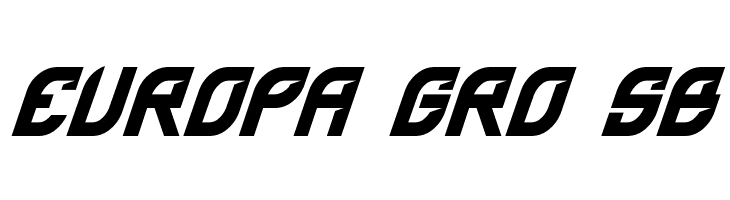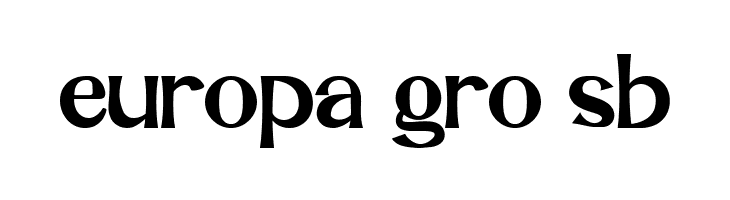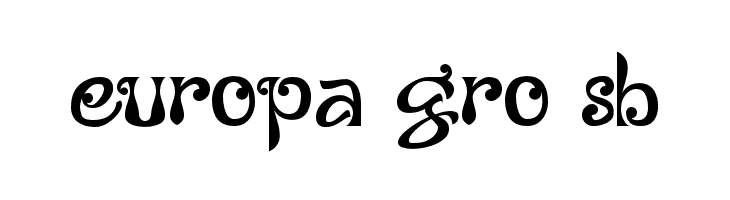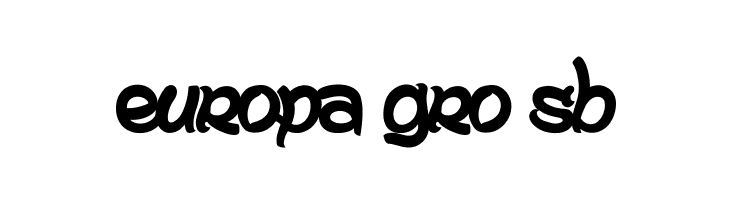
A bold, geometric font with sharp edges and a modern-traditional blend.
A bold, italicized font with dynamic slant and angular design.
A dynamic italic font with sharp serifs and a modern, artistic style.
A playful and whimsical font with tall, narrow letterforms and dynamic strokes.
A playful, whimsical font with tall, narrow letters and a modern artistic flair.
An ornate and decorative font with intricate curls and swirls.
A whimsical and playful font with dynamic character shapes.
A bold, italicized font with a dynamic, modern style.
A bold, brush-style font with dynamic and energetic characters.
A bold, artistic font with dynamic, hand-drawn strokes and a unique flair.